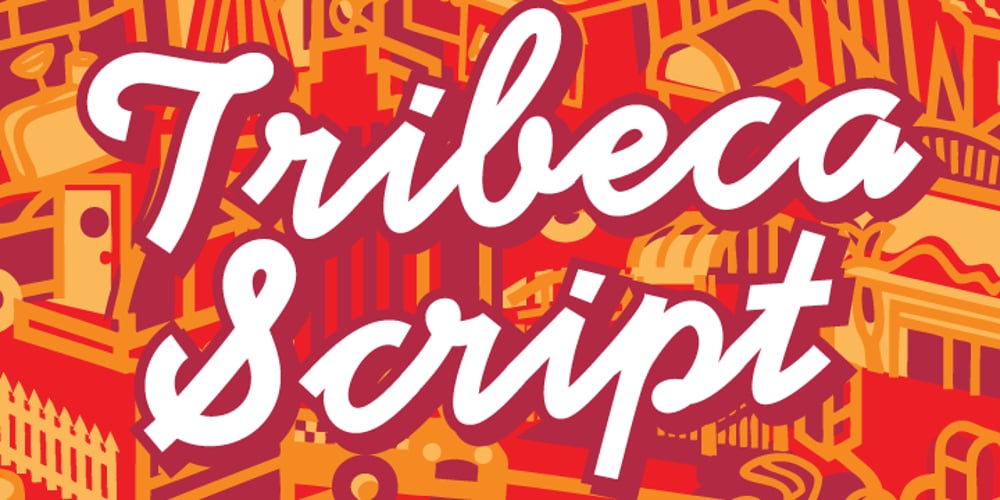
Tribeca Script
Tribeca Script font
Tribeca Script Font Family was designed by Daniel Pelavin and published by Pelavin Fonts. Tribeca Script contains 1 styles and family package options. Script characters should fit together neatly and the connections mustn’t look awkward. While this can be accomplished by using dozens of alternate glyphs and OpenType feature coding, there is still something worthy and eloquent about doing it with the simplest character set possible. Tribeca Script is a casual, mono-weight script first drawn as the headline for a Taste of Tribeca poster and later finessed into a font with no pretense of looking hand-rendered.